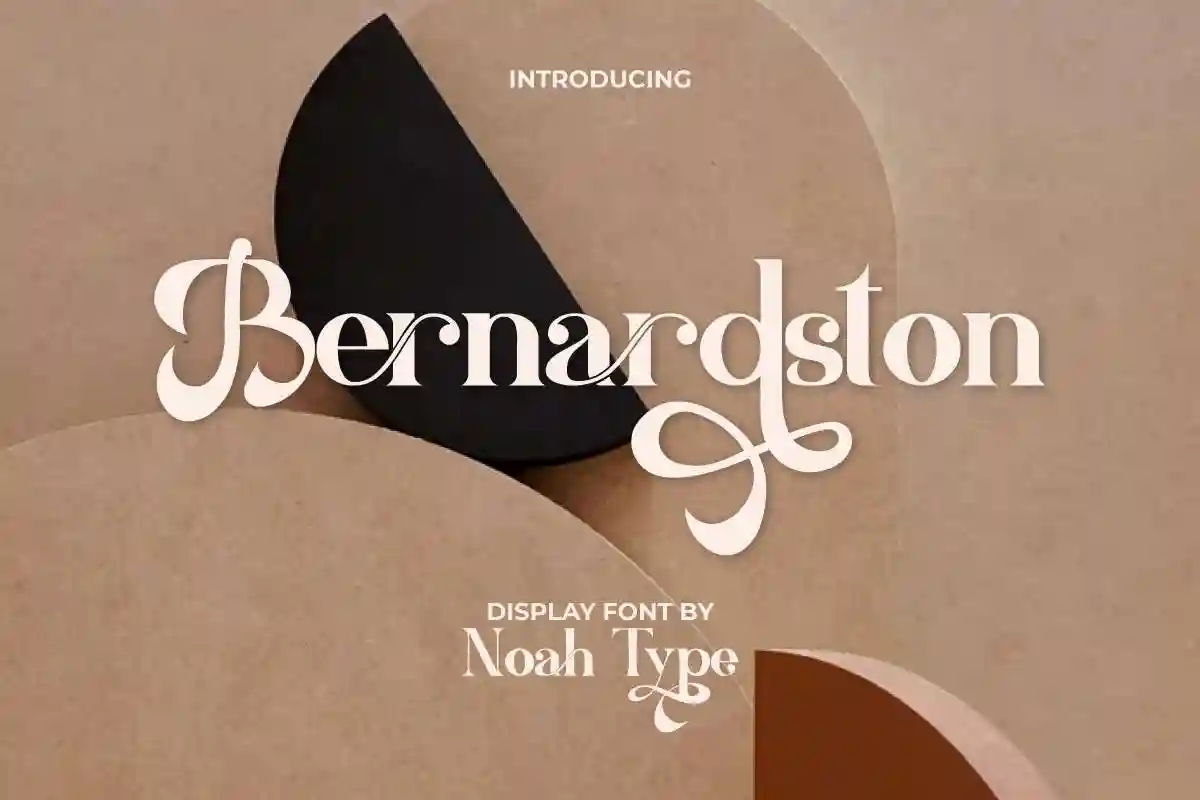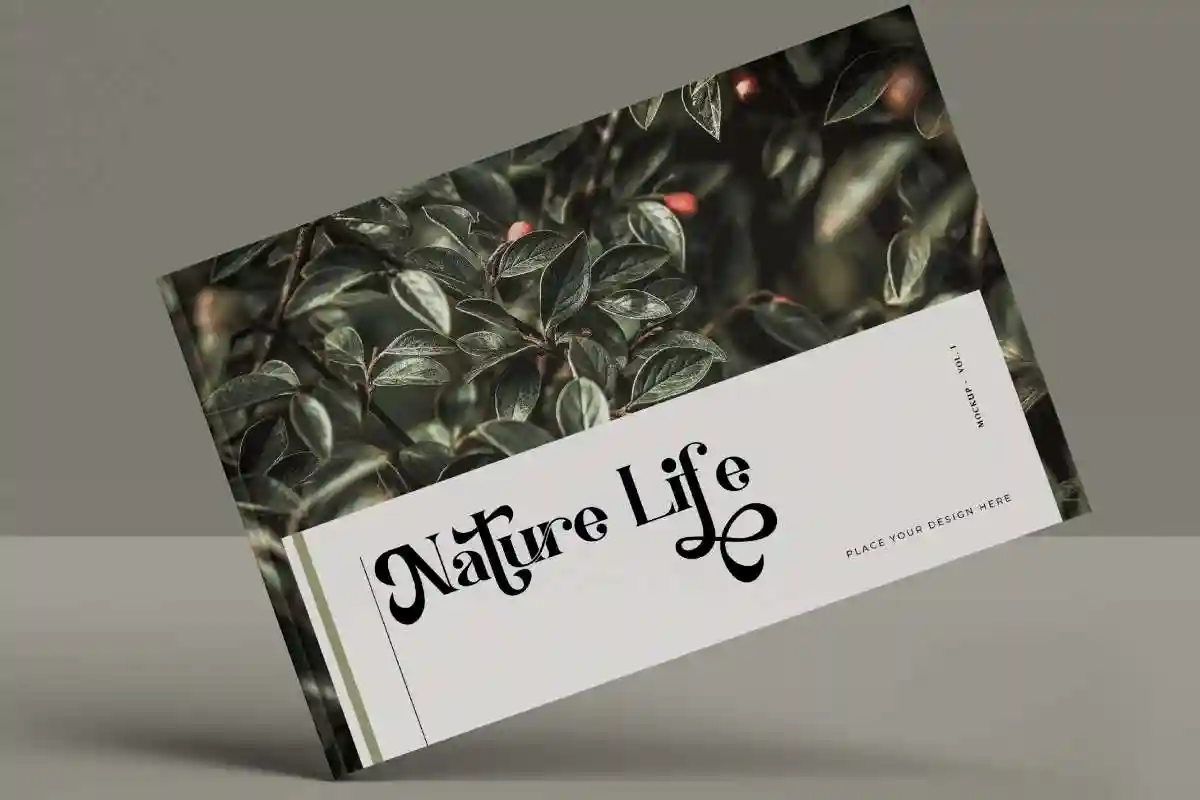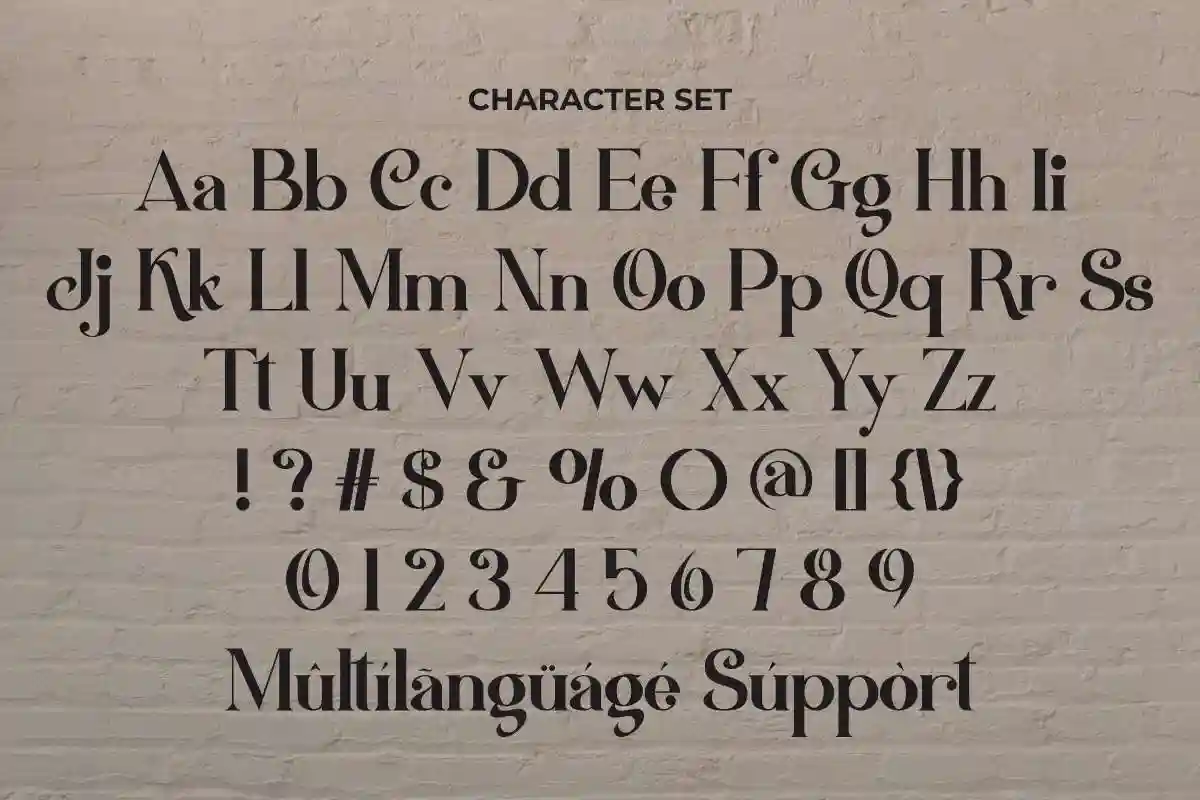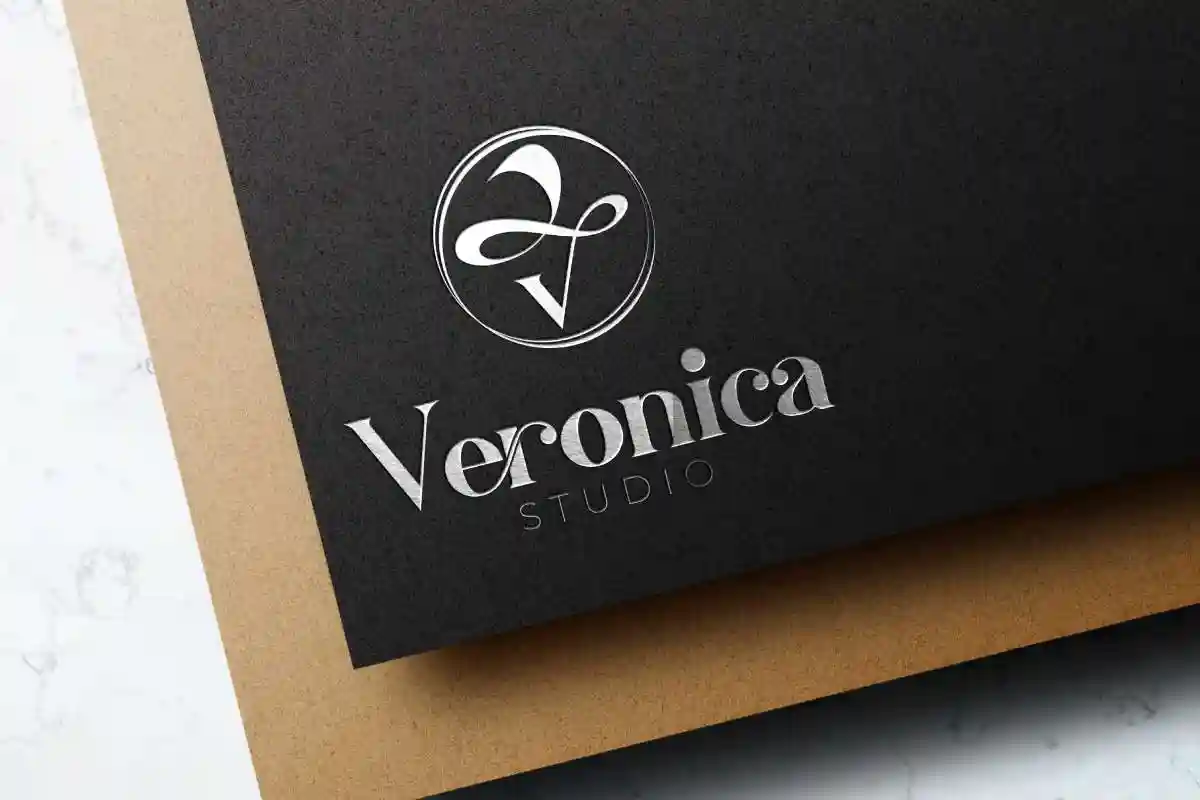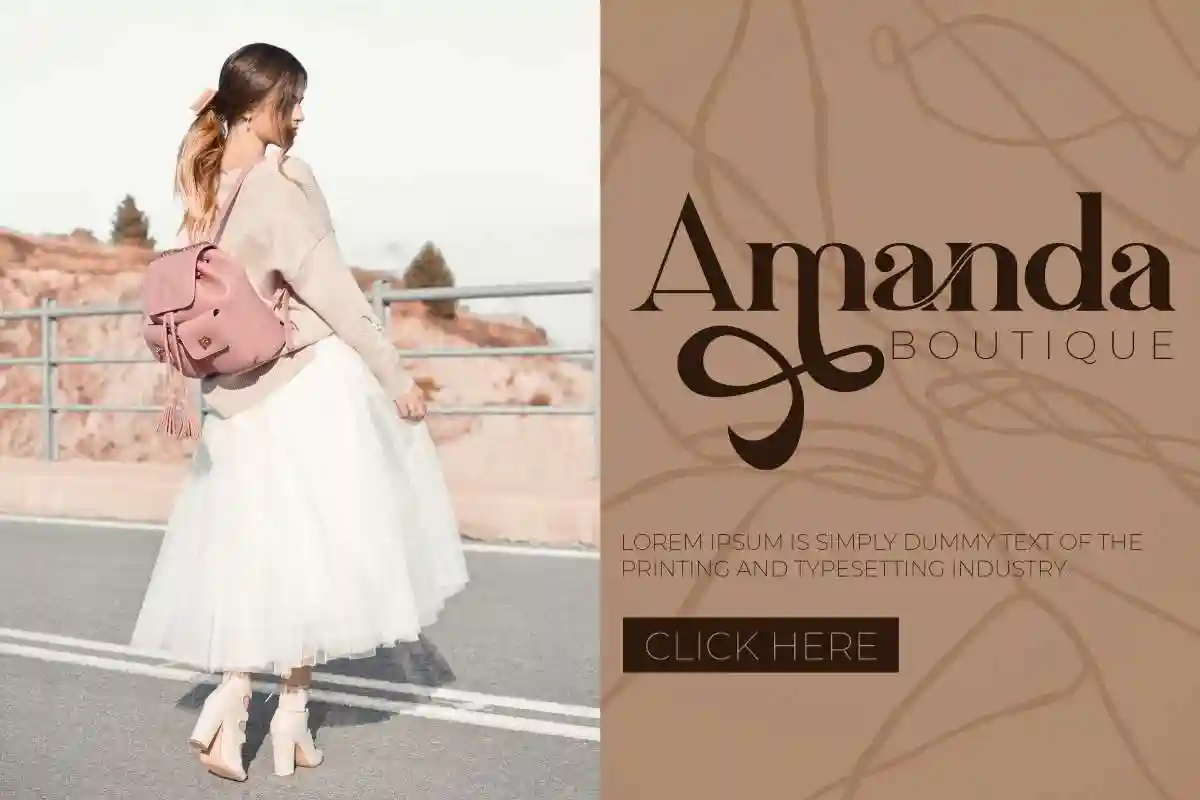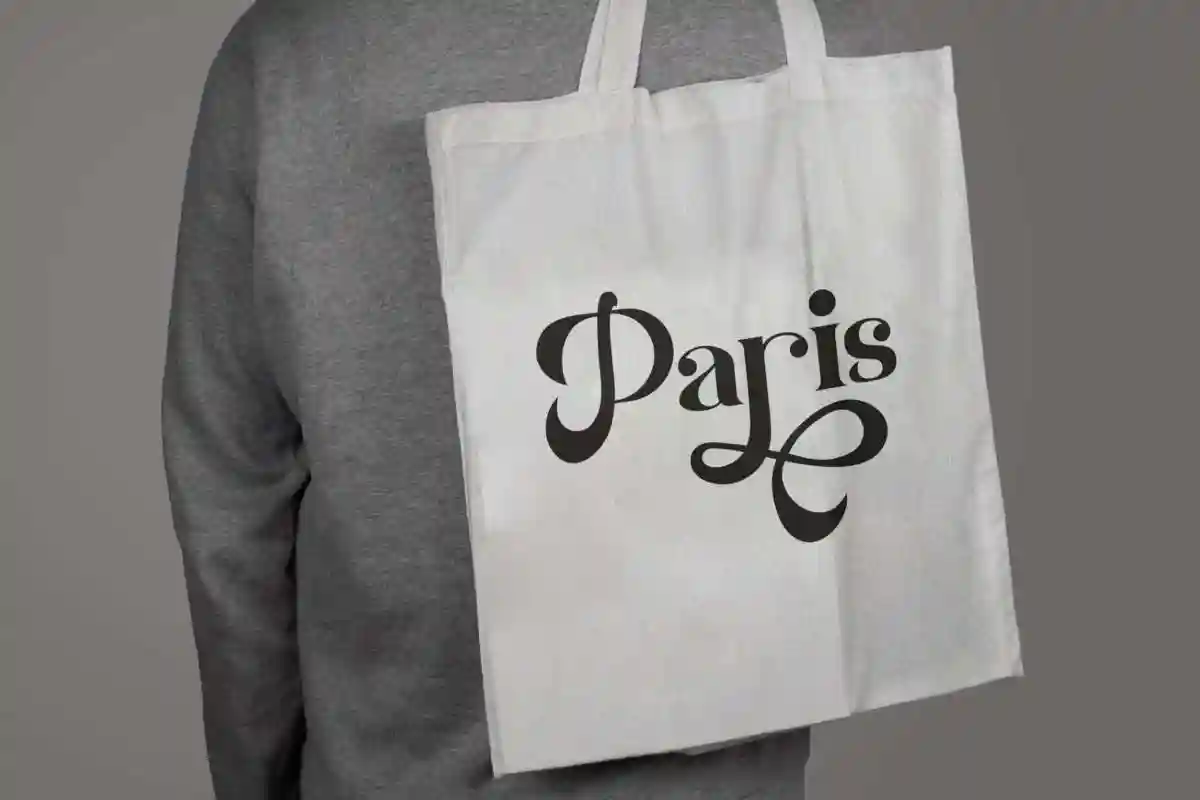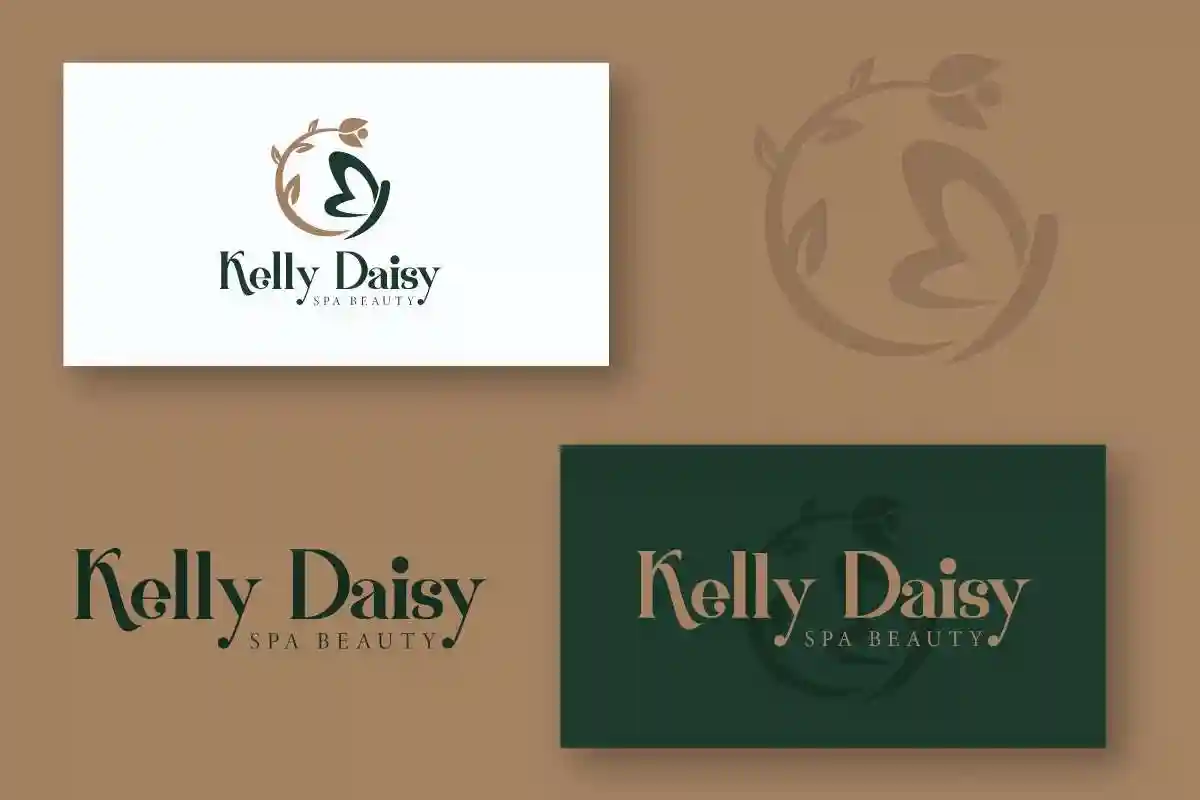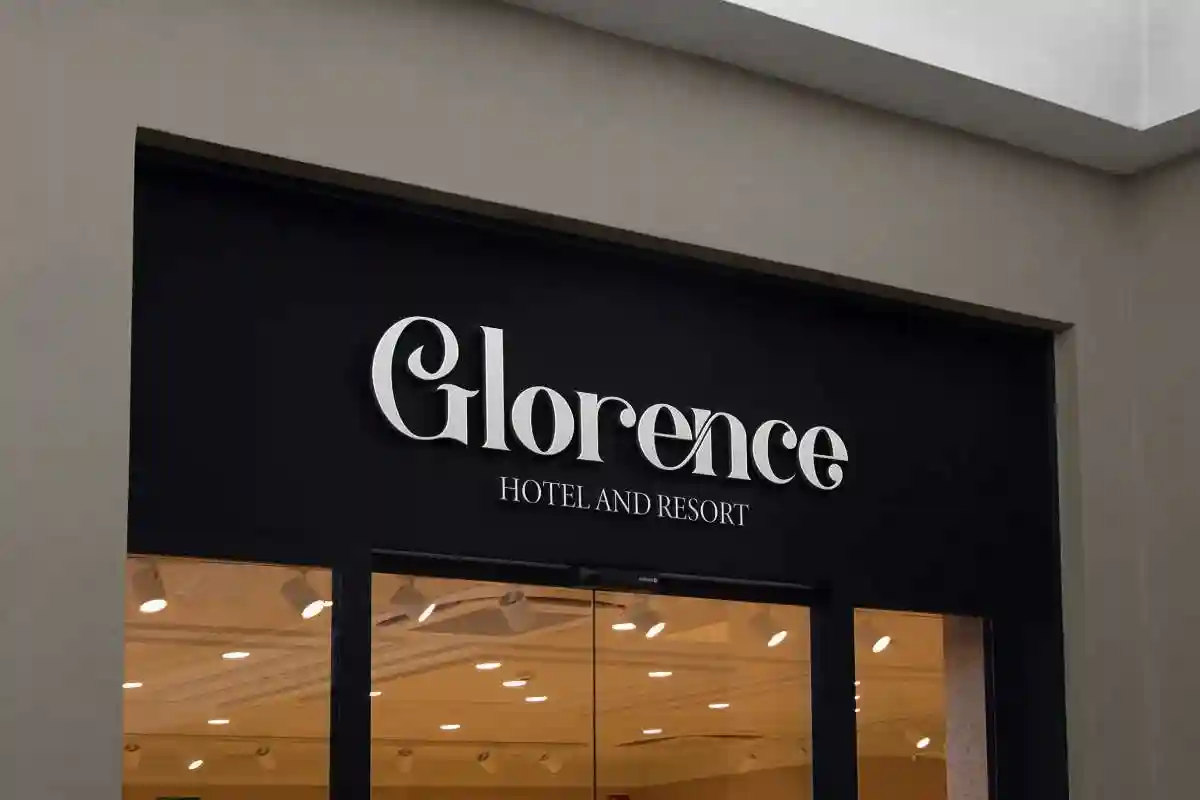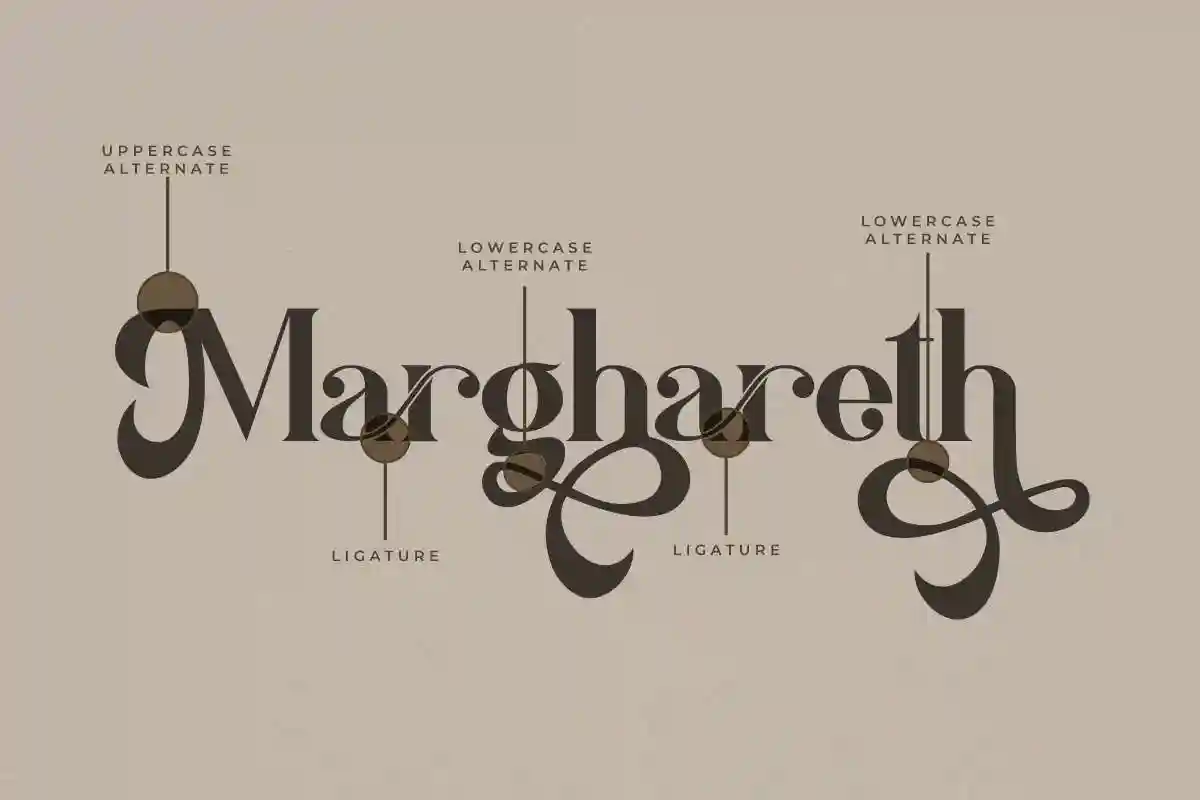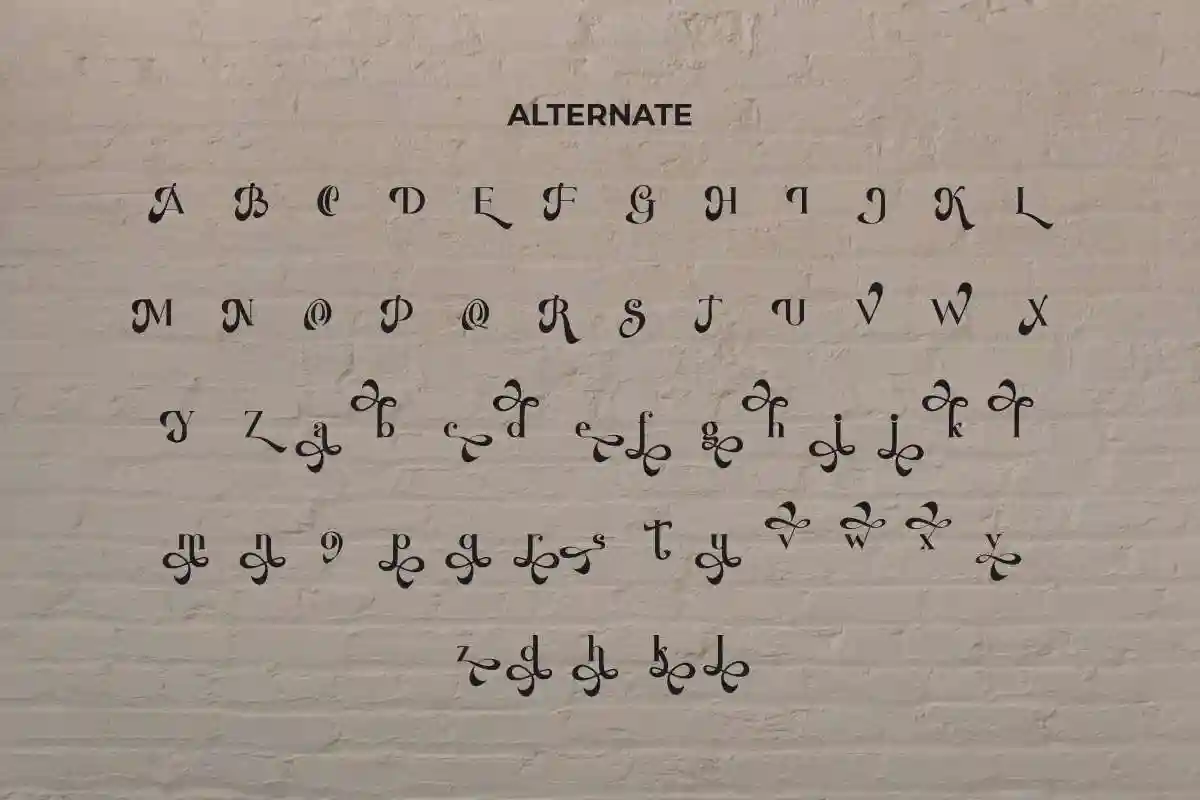
Bernardston Font is a stylish sans serif display font with classic vintage vibes. The font comes with several alternatives characters to make it unique and exclusive. Specially made by NoahType, this font will add a personal look twist to any design project. When we make this font, we really want to create a touch that is so special for you! that it gives a special impression with unique shapes. It will be amazing for any project : fashion, boutique, spa beauty, hotel, resort, interior, products, brand and many more.
Bernardston Font includes full set of Uppercase and Lowercase Basic Characters, Numerals and Punctuation. Perfectly make natural writing look that add more beautiful and aesthetic fonts to perfect your extraordinary project.
Bernardston is a modern, stylish script font designed with smooth curves, refined strokes, and a luxurious handwritten touch. Each character is crafted with precision to deliver a font that’s not only eye-catching but also exceptionally readable. Whether you’re designing a wedding invitation, fashion logo, personal branding, Instagram quote, or product packaging, Bernardston will give your design a polished and professional look.